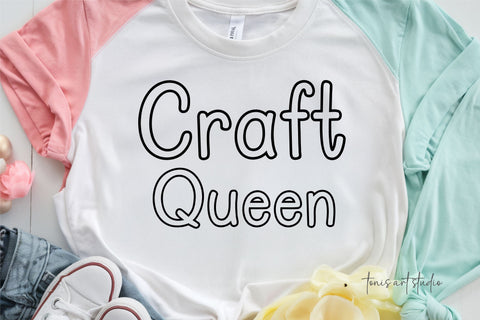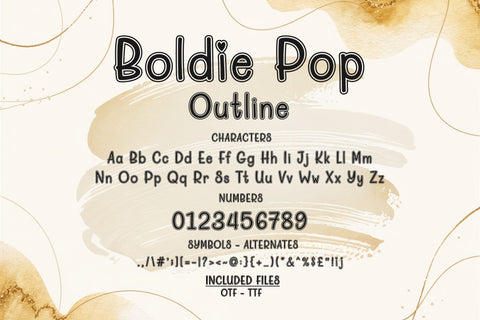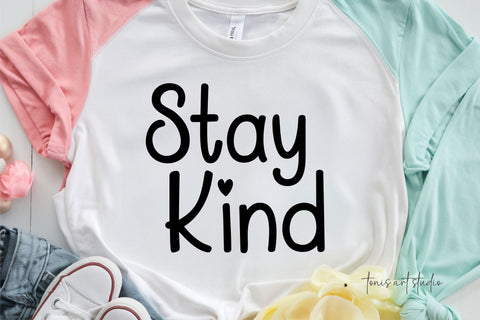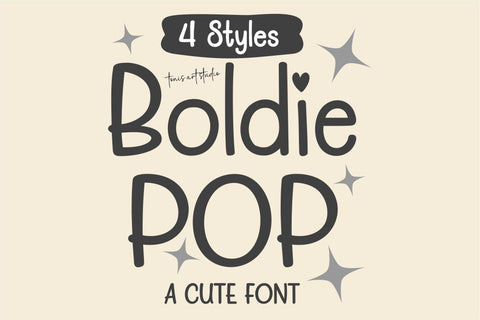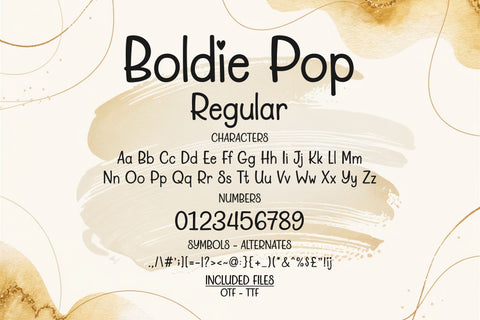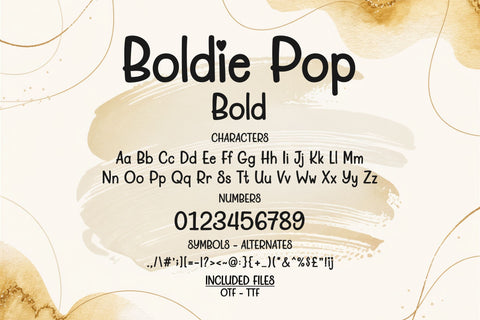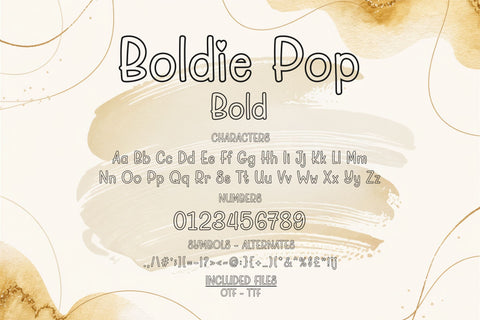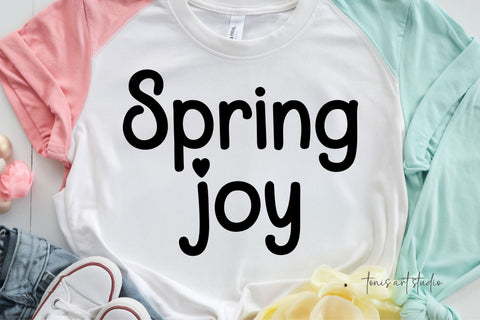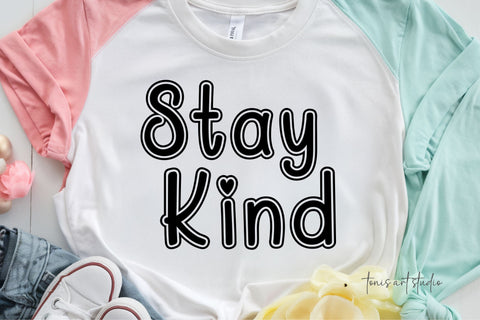
Boldie Pop Font Bundle – Cute, Fun, Handwritten Fonts
Immerse your designs in bundles of joy with Boldie Pop, a whimsical, handcrafted font collection that features four delightful styles - Regular, Bold, Line, and Outline. This warm-hearted compilation brings charm and charisma through its bulbous contours and adorable heart-shaped alternates for 'i' and 'j', injecting sweetness into any design it graces.
Boldie Pop's cheerful energy suits a myriad of projects, from adorning children's works, birthday invites, and nursery decorations to enhancing sublimation designs, educator printables, and digital crafts. Concordant and compatible across multiple platforms such as Cricut, Silhouette, Canva, and Procreate, these fonts come in both OTF and TTF formats for seamless integration. An ideal choice for crafters and creatives alike, Boldie Pop is your go-to for a joyful and visually appealing font that adds a pinch of cuteness to your design endeavors.